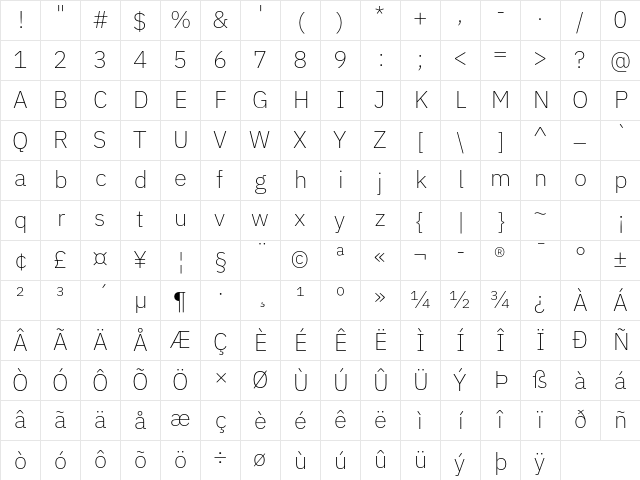
Complete IBM Plex Devanagari ExtraLight Regular glyph index. Displaying only characters natively supported by IBM Plex Devanagari ExtraLight Regular font.
IBM Plex Devanagari ExtraLight is a composed and adaptable typeface that performs quietly and consistently across a wide range of design contexts. Its slender proportions lend an understated elegance to any composition.
Who designed the IBM Plex Devanagari ExtraLight Regular font?